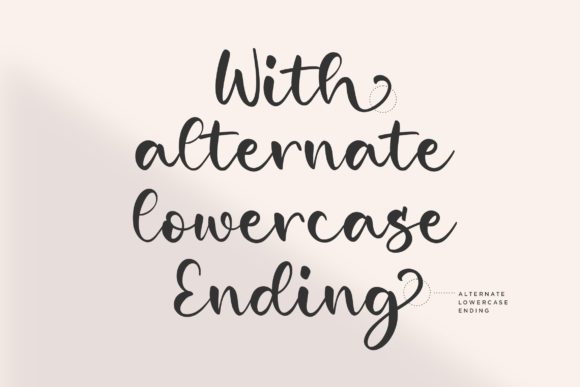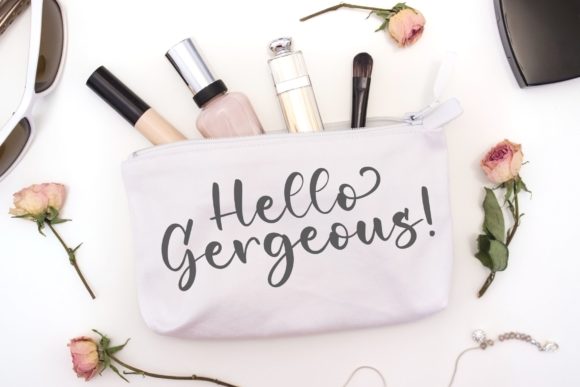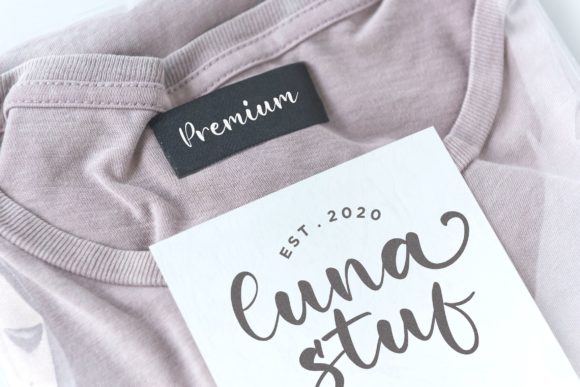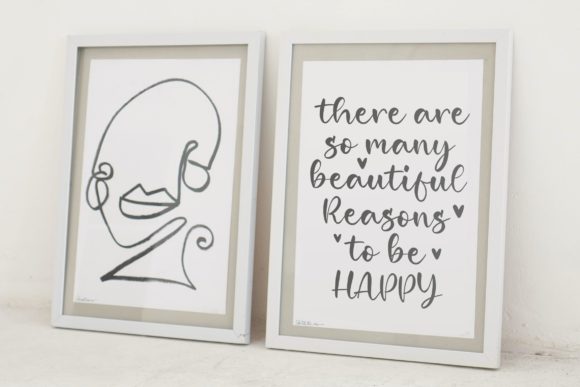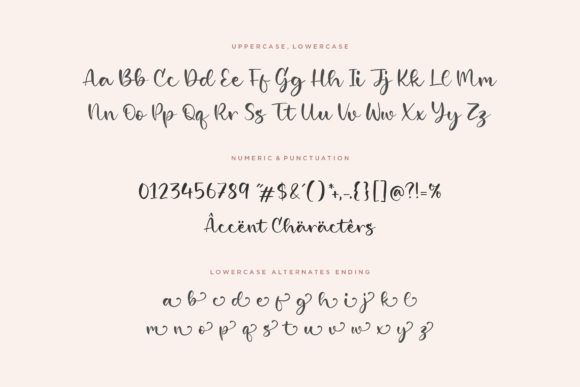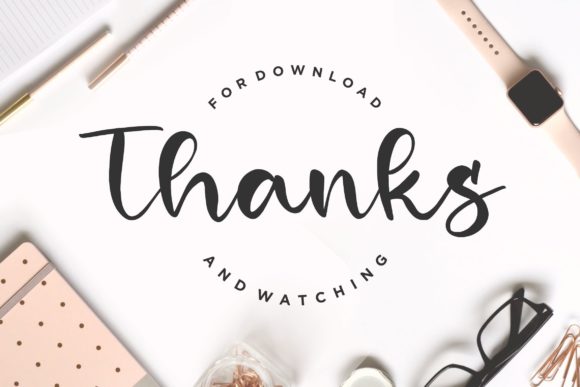
Girlish Font: Elevate Your Designs with a Ravishing Script Font
In the world of typography, a font can make or break a design. For designers and crafters looking to add a touch of elegance and sophistication to their creations, the Girlish font is an excellent choice. This stunning script font is neatly crafted and highly detailed, making it a wonderful asset to any font library.
What is Girlish Font?
Girlish is a ravishing script font that exudes a sense of femininity and charm. Its elegant strokes and beautiful lettering make it perfect for a wide range of design projects, from wedding invitations and party decorations to branding and advertising materials. The font’s intricate details and flowing script style give it a unique and eye-catching appearance that is sure to capture the attention of your audience.
Key Features of Girlish Font
- Neatly Crafted: Girlish font is carefully designed to ensure that every letter and stroke is perfect, making it a high-quality addition to any font library.
- Highly Detailed: The font’s intricate details and elegant strokes make it a standout choice for designers looking to add a touch of sophistication to their creations.
- Versatile: Girlish font can be used for a wide range of design projects, from wedding invitations and party decorations to branding and advertising materials.
- Elegant and Sophisticated: The font’s flowing script style and beautiful lettering give it an elegant and sophisticated appearance that is sure to impress.
Why Choose Girlish Font?
With so many fonts available, why choose Girlish font for your design projects? Here are just a few reasons why Girlish font stands out from the crowd:
- Unique and Eye-Catching: Girlish font’s intricate details and flowing script style make it a unique and eye-catching choice that is sure to capture the attention of your audience.
- Easy to Read: Despite its intricate details, Girlish font is easy to read, making it a great choice for body text and headings.
- Customizable: Girlish font can be customized to fit your design needs, allowing you to adjust the font size, color, and style to suit your project.
- Support for Multiple Languages: Girlish font supports multiple languages, making it a great choice for designers working on international projects.
How to Use Girlish Font in Your Designs
Using Girlish font in your designs is easy. Here are a few tips to get you started:
- Pair it with Other Fonts: Girlish font pairs well with other fonts, such as sans-serif fonts like Arial or Helvetica. Experiment with different font combinations to find the perfect look for your design.
- Use it for Headings and Titles: Girlish font is perfect for headings and titles, where its elegant strokes and beautiful lettering can really shine.